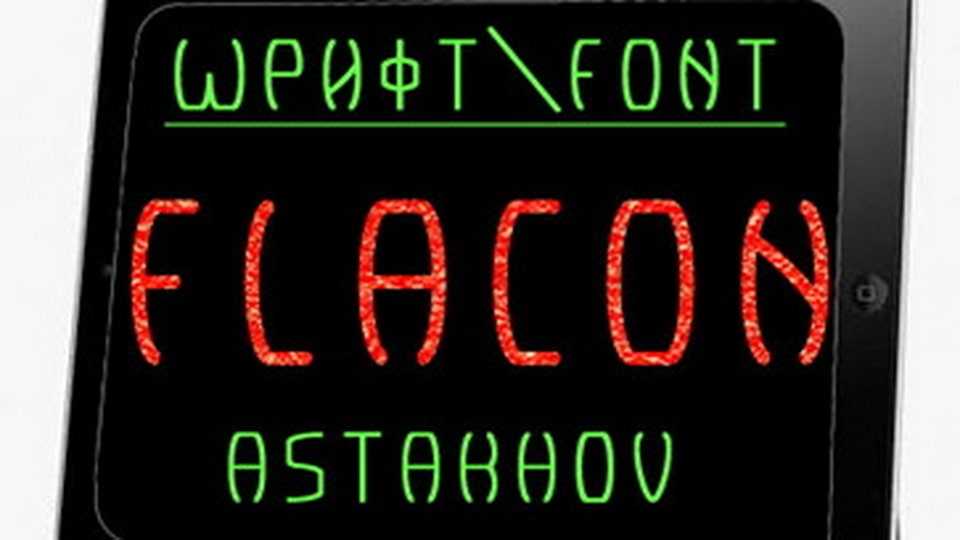
Download Astakhov Flacon font, a geometric and tech-inspired typeface with a sleek, futuristic edge, featuring clean, curvy lines and a minimalistic monospaced structure.